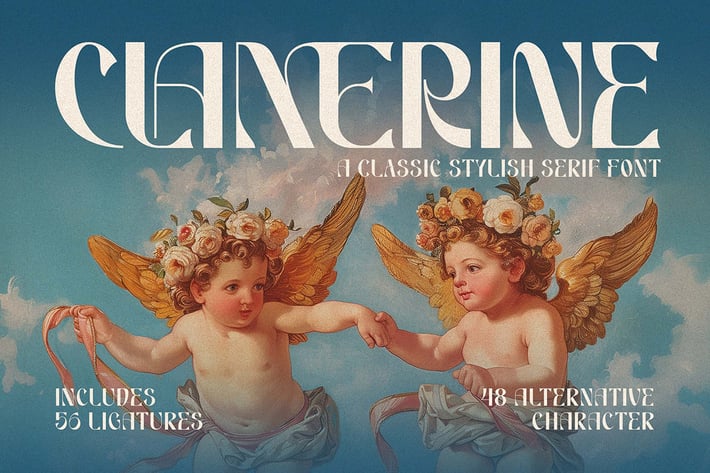
Clamerine a Classic Stylish Font
Clamerine a Classic Stylish Font is made for any professional project branding, such as logotype, watermarks, poster, branding, promotions, product packaging, etc. Every letter has a classic style design. This font comes in regular style.
Clamerine font includes a full set of classic stylish uppercase and lowercase letters, numerals and punctuation. This font has a classic style. See the previews above to get some inspiration on how to use them. Happy designing!